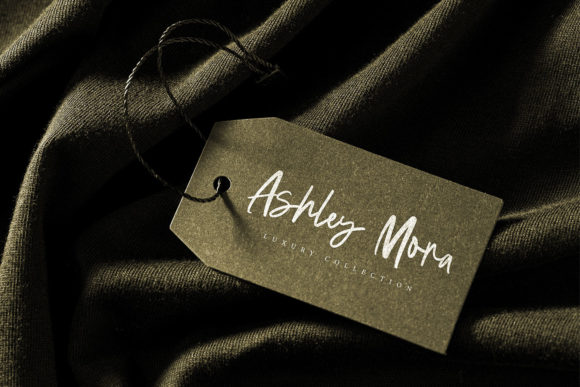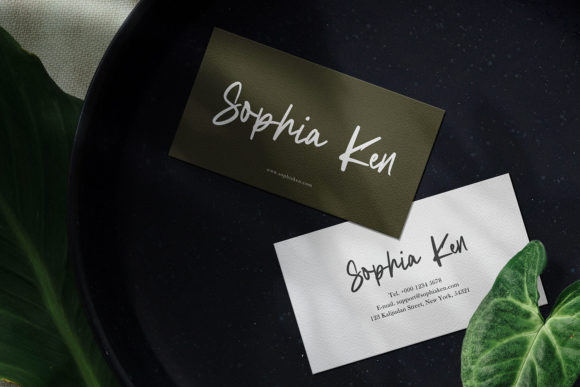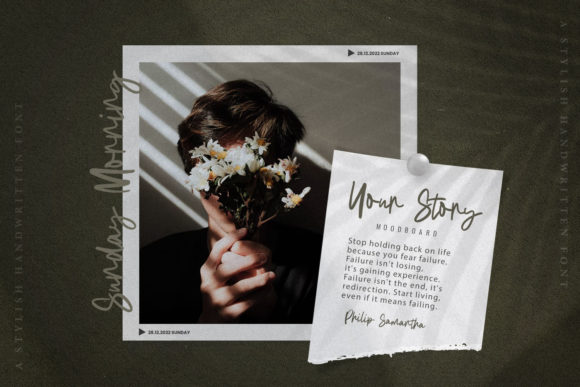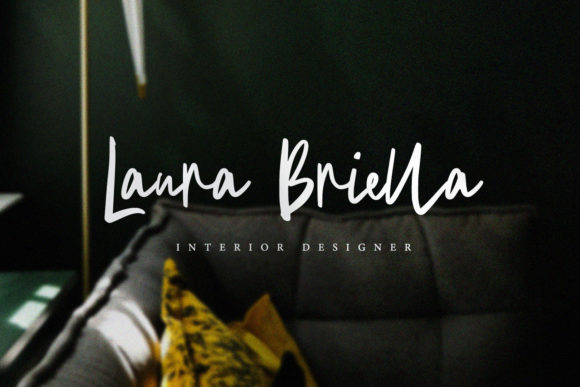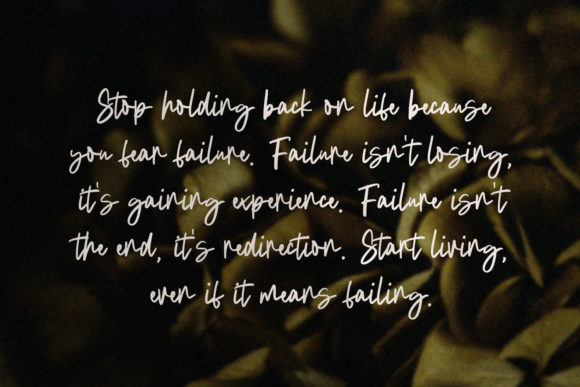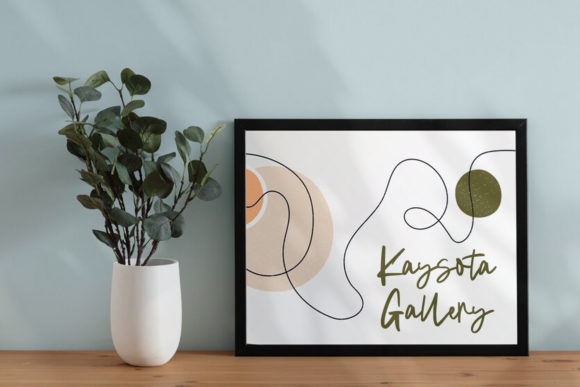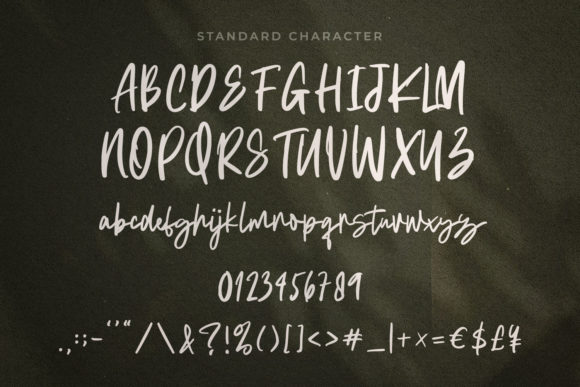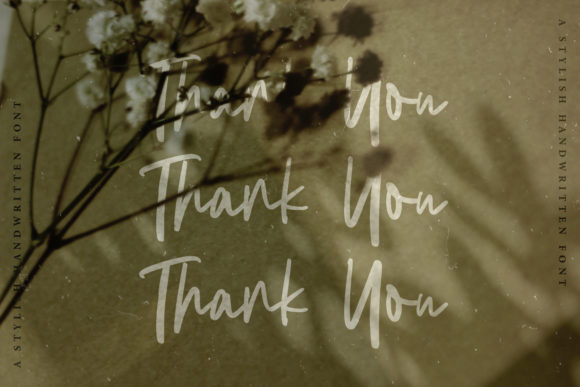
La Amosta Font
About La Amosta Font
“La Amosta” is a relaxed and casual handwritten font that brings a natural and stylish flow to your creative projects. With its laid-back demeanor, this font adds a touch of ease and informality to your designs. “La Amosta” is PUA encoded, allowing convenient access to all of its glyphs and swashes, providing you with a seamless experience in customizing your designs.
The relaxed and casual nature of “La Amosta” makes it suitable for a variety of design applications. Whether you’re working on social media graphics, invitations, or any project that requires a friendly and approachable aesthetic, this font confidently fits into diverse design contexts.
The PUA encoding feature enhances the accessibility of “La Amosta,” enabling you to effortlessly explore and incorporate various glyphs and swashes. This versatility allows you to personalize your designs, adding unique stylistic elements and making “La Amosta” a valuable asset for your creative endeavors.
In summary, “La Amosta” is more than just a font; it’s a relaxed and casual typeface that effortlessly brings a natural and stylish flow to your projects. With its PUA encoding, this font provides you with the flexibility to infuse personality and charm into your designs. Add “La Amosta” confidently to your creative toolkit, and enjoy the delightful and laid-back results it brings to your projects.